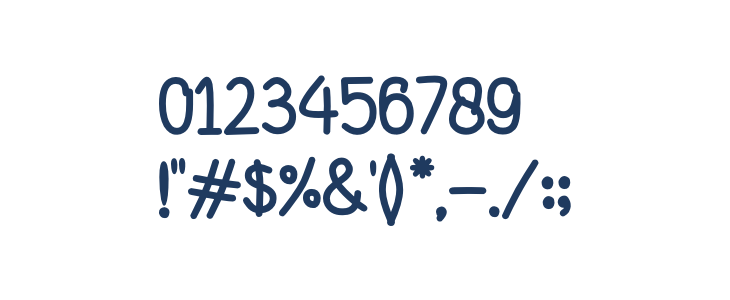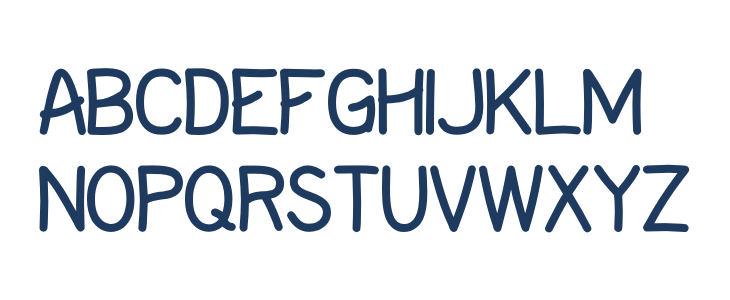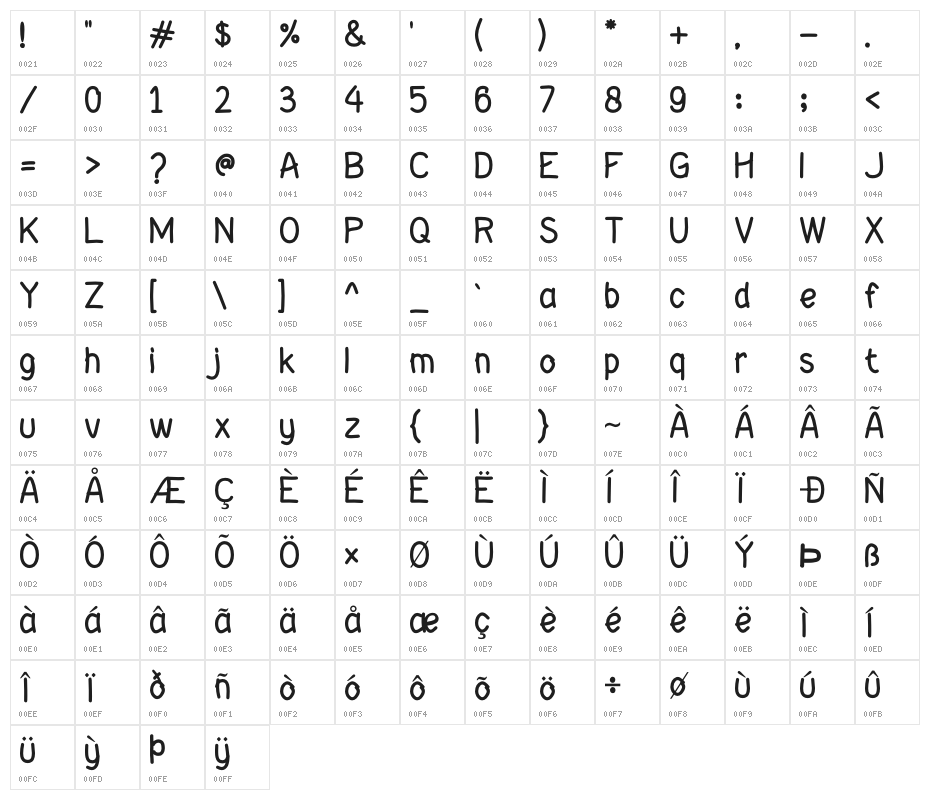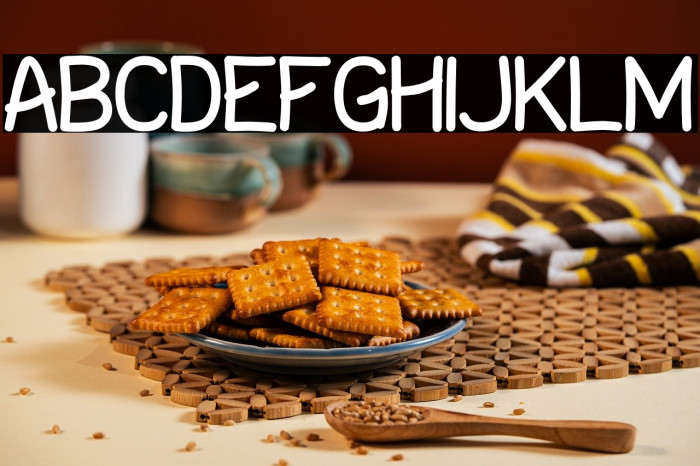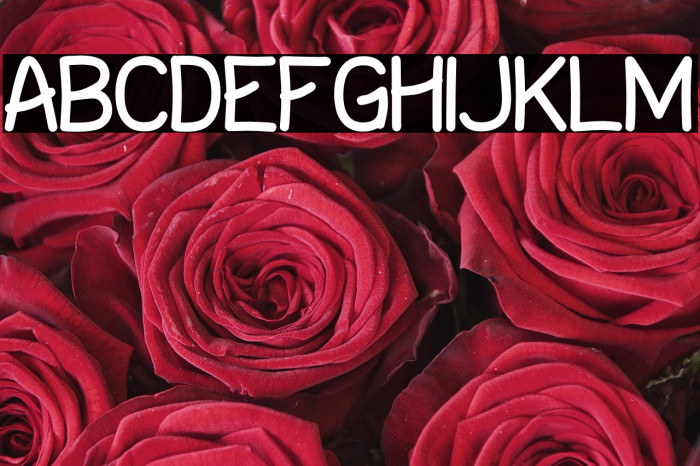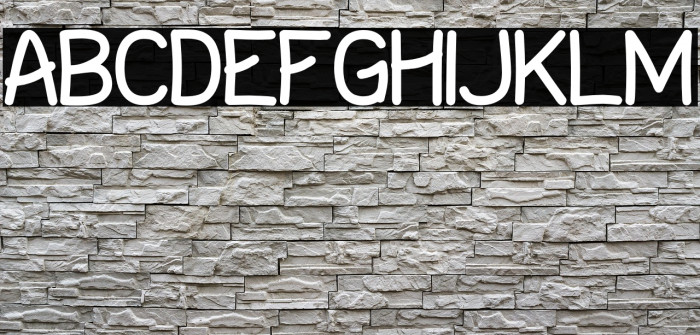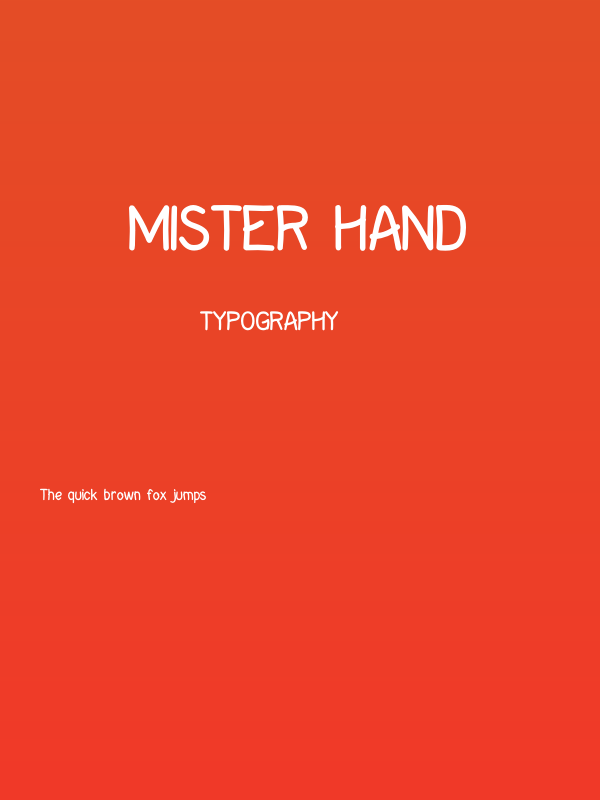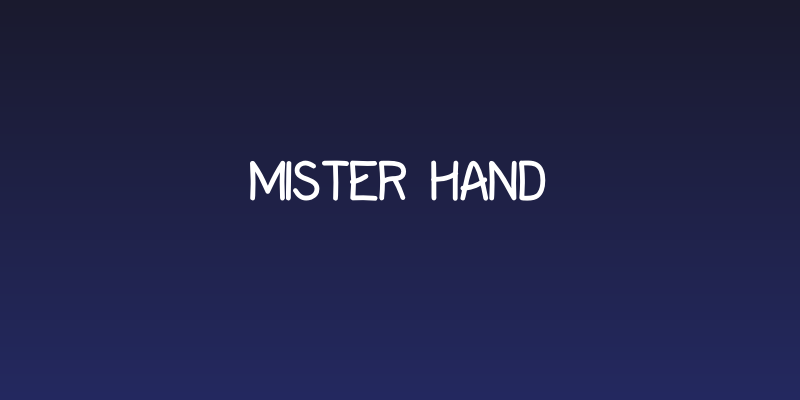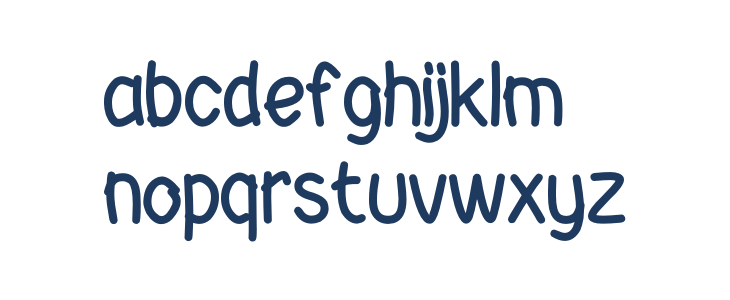
Mister Hand Font
Mister Hand Description
A playful, rounded handwritten typeface with consistent stroke width, informal character shapes, and a friendly, approachable appearance. The letters have a casual, slightly uneven baseline, enhancing the hand-drawn effect.
| Overall Style | Playful, Informal, Handwritten |
| Use Case | Headlines, Posters, Informal branding, ChildrenΓ’β¬β’s materials |
| Proposed Projects | ChildrenΓ’β¬β’s books, greeting cards, posters, educational materials, playful branding. |